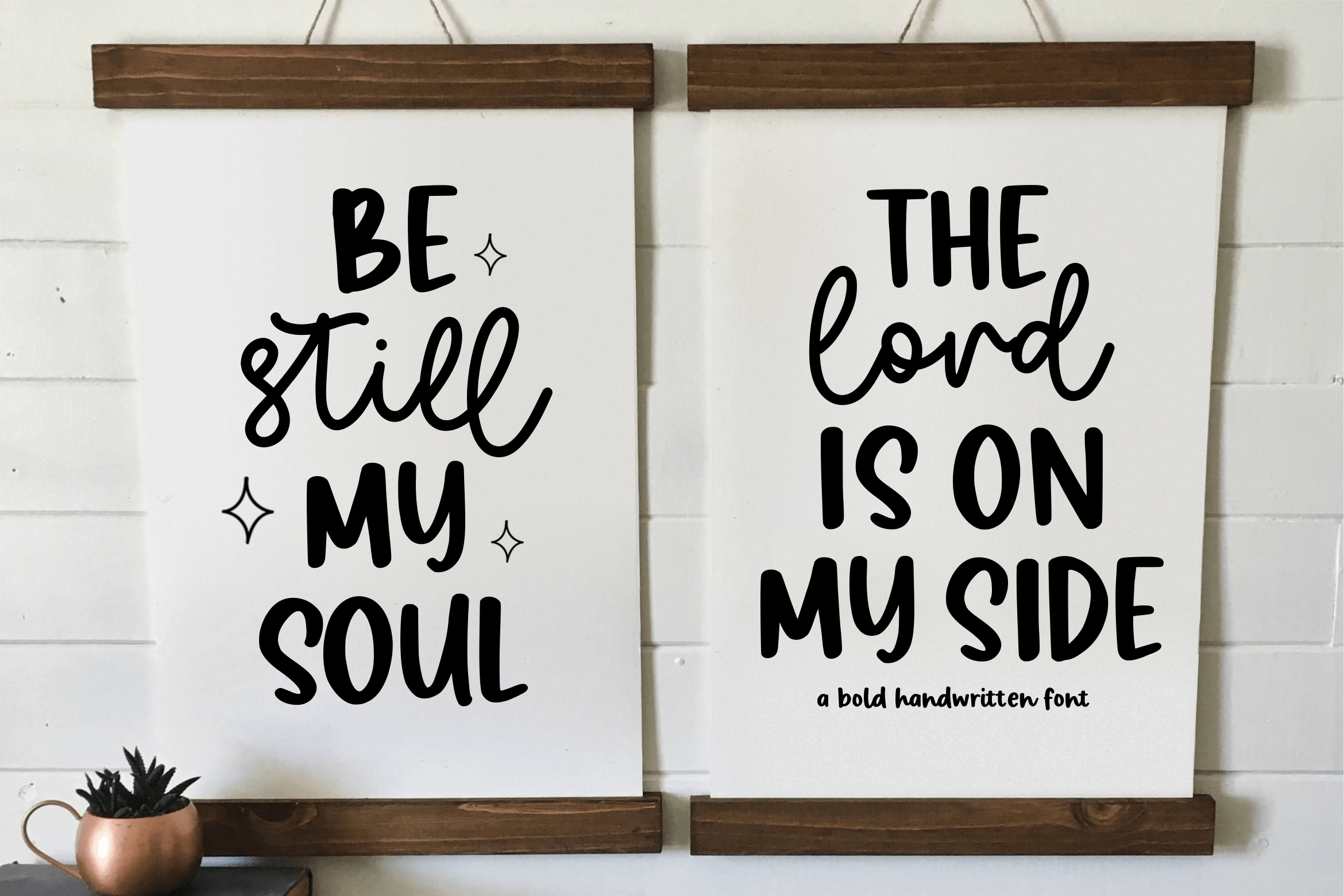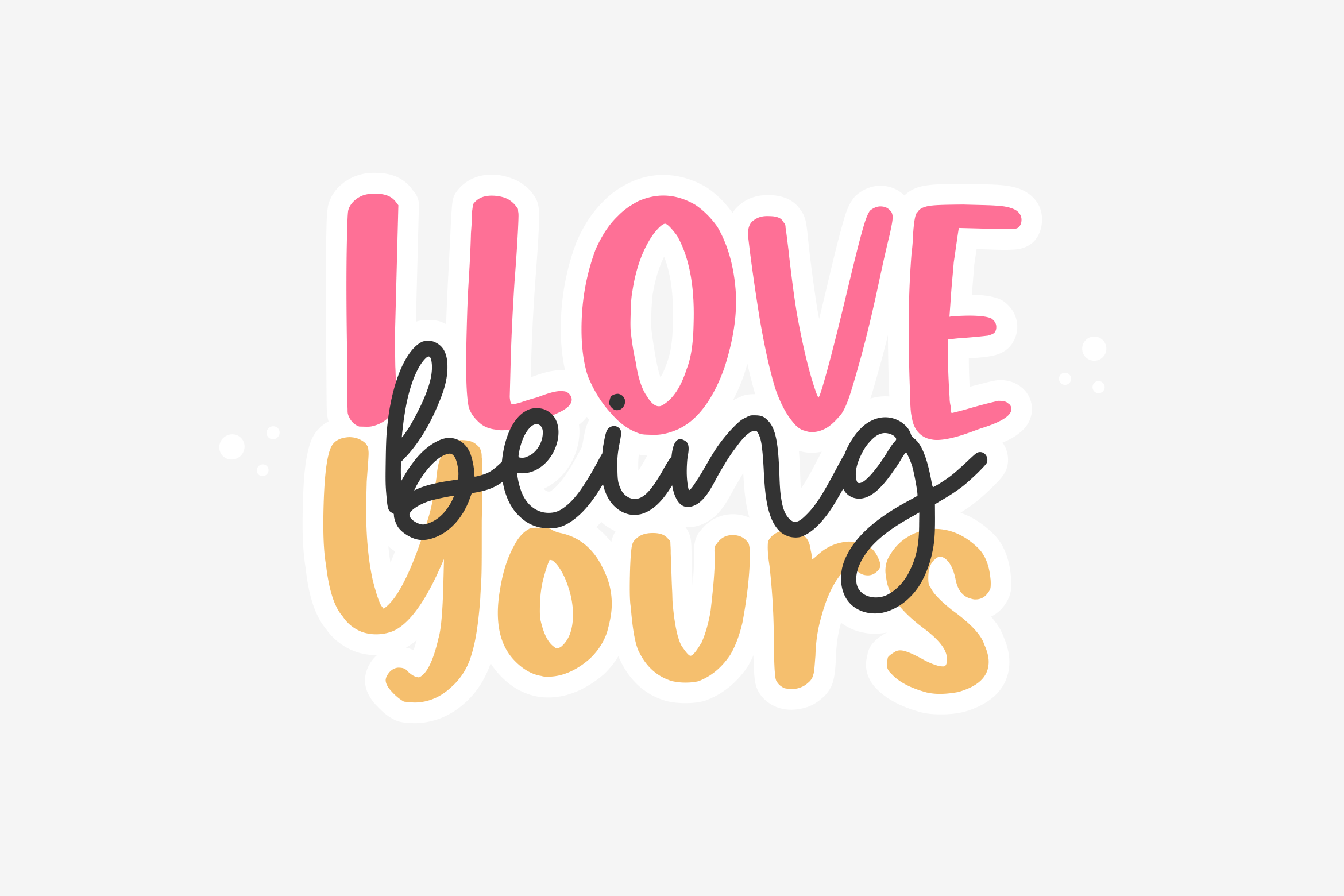
Freaky Bouncy Font
Freaky Bouncy Handwritten Font
It’s A Bold Handwritten Font. Freaky Bouncy is perfect for product packaging, branding project, megazine, social media, wedding, or just used to express words above the background. This font includes OTF&TTF&Woff, Freaky Bouncy also multilingual support.